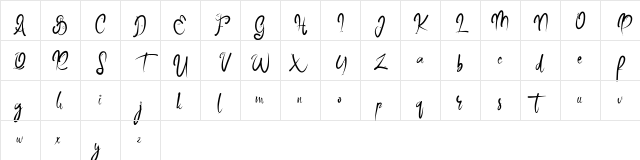
Complete Pastilec FREE Regular glyph index. Displaying only characters natively supported by Pastilec FREE Regular font.
Pastilec FREE is a composed and adaptable typeface that performs quietly and consistently across a wide range of design contexts.